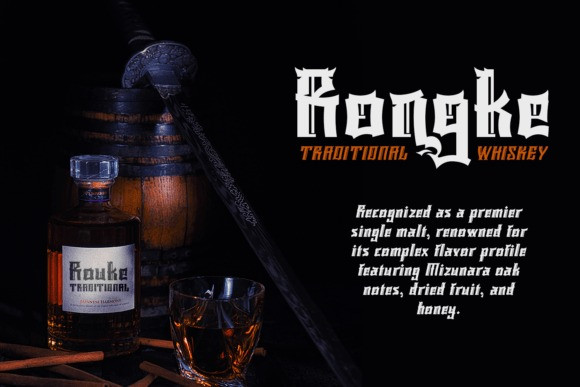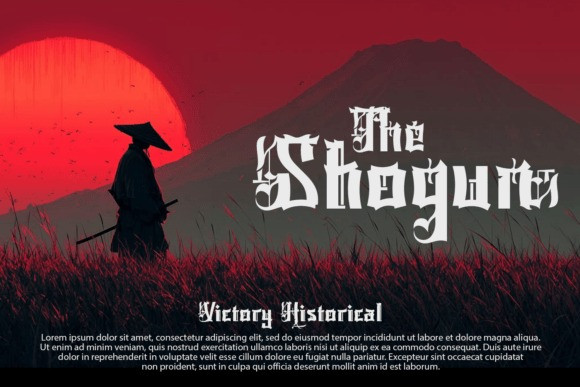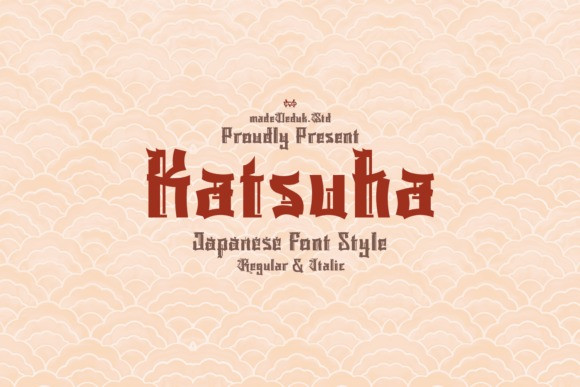
Katsuha Font
Katsuha Font a decorative kanji style with sharp, pointed, and distinctive letterforms. Each character is designed with strong angles and detailed edges, creating a dramatic, mysterious, and slightly classic appearance. Its unique structure makes the font stand out easily and attract attention, especially when used for titles or as the main element in a design. This style is well suited for posters, fantasy designs, and other creative projects that require a strong and artistic visual identity.